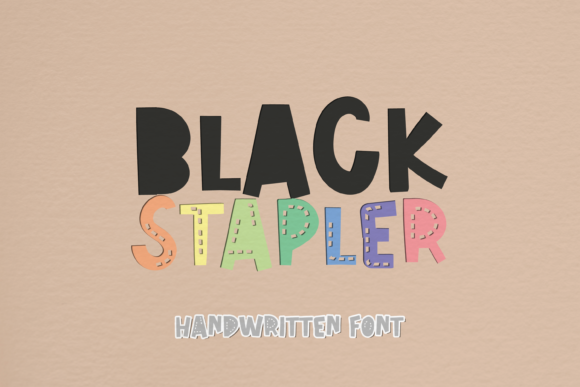
The Black Stapler Font: A Sweet & Charming Display Font for Creative Projects
I’ll never forget the time I was working on a children’s book design project, and I just couldn’t find the right font to bring the story to life. The client wanted something playful, yet elegant, and I was on the verge of giving up. That’s when I stumbled upon the Black Stapler font, and it was love at first sight! ✨ In this article, I’ll share my experience with this beautiful font, its features, and how to make the most of it in your design projects.
• ✨ The Black Stapler font has an incredibly playful feel that’s perfect for children’s themed designs.
• ✅ Its charming and sweet personality makes it ideal for projects that require a touch of whimsy.
• 🎉 The font comes with a range of OpenType features, glyphs, and stylistic alternates that allow for endless creativity.
While the Black Stapler font is amazing, there are a few things to keep in mind: 🤔
• ⚠️ The font may not be suitable for body text due to its display nature.
• ⚠️ Some of the more intricate glyphs and alternates may not work well at smaller font sizes.
The Designer Inspiration Behind Black Stapler Font
The Black Stapler font was designed with the intention of creating a playful and charming display font that’s perfect for children’s themed designs. The designer wanted to create a font that’s both fun and elegant, with a touch of whimsy that’s sure to delight kids and adults alike. The result is a font that’s both versatile and easy to use, making it perfect for a wide range of design projects.
Q: What type of projects is the Black Stapler font best suited for?
A: The Black Stapler font is perfect for children’s themed designs, such as kids’ party invitations, stickers, and crafts.
Q: Is the Black Stapler font available in different languages?
A: The Black Stapler font may not be available in all languages, but it does come with a range of OpenType features and glyphs that allow for some language support.
Q: Can I use the Black Stapler font for body text?
A: While the Black Stapler font is a beautiful display font, it may not be suitable for body text due to its nature and design.